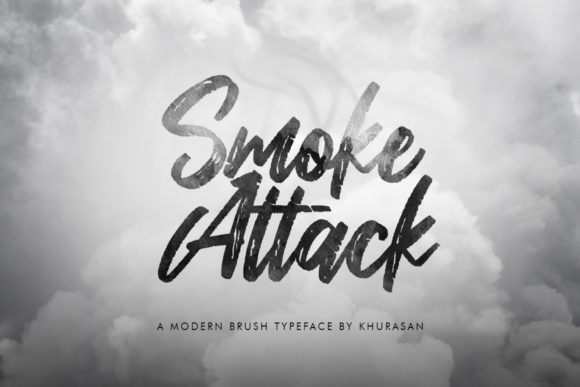
Welcome to the world of Smoke Attack Font, where calligraphy and elegance intertwine. Designed by the talented Khurasan, this script font exudes a vintage charm that is infused with a modern flair. A captivating dance of strokes, each letter in Smoke Attack Font is meticulously crafted to evoke a sense of timeless beauty.
Harnessing the power of Smoke Attack Font, you can effortlessly transform your creative projects into captivating works of art. Its vintage aesthetic adds a touch of nostalgia to logos, branding, posters, advertisements, apparel designs, and any medium you desire. Let the graceful lines of Smoke Attack Font carry your message, leaving an unforgettable impression on your audience.
With Smoke Attack Font, you're not just downloading a font; you're unlocking a world of creative possibilities. Its versatility knows no bounds, adapting seamlessly to various design themes and styles. Whether you seek a classic, elegant look or an edgy, contemporary vibe, Smoke Attack Font has the power to elevate your designs to new heights.
Smoke Attack Font's effortless charm will captivate your audience, drawing them into your creative vision. Its elegant strokes and vintage allure create a sense of nostalgia and authenticity, evoking emotions that resonate deeply. Tap into the power of Smoke Attack Font and watch as your designs come alive with a timeless beauty that transcends trends.
Join the ranks of creative visionaries who have embraced the magic of Smoke Attack Font. Let your imagination run wild as you explore the endless possibilities this font offers. Elevate your designs to new heights, captivate your audience, and leave a lasting impression with Smoke Attack Font. Experience the beauty of vintage elegance infused with modern flair and unlock the full potential of your creativity today.